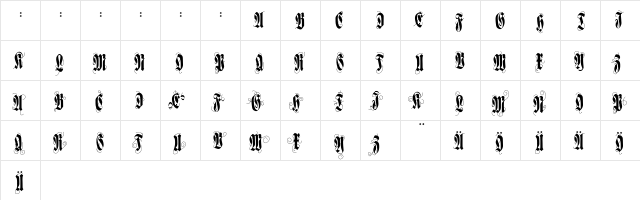
FlourishVersal Regular
Design Context for FlourishVersal Typeface
FlourishVersal is a composed and adaptable typeface that performs quietly and consistently across a wide range of design contexts.